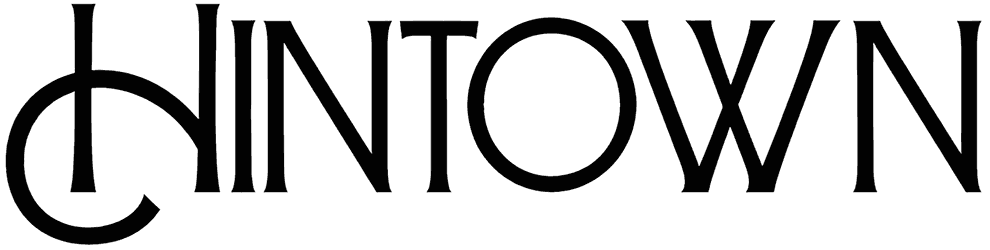
Hintown Font
Whether you’re making a poster, a card, or a t-shirt, you’re sure to be pleased with the results when you use the beautiful, retro font called Hintown.
Don’t wait another minute to get your hands on this fantastic display font, available in two sets of uppercase letters. Choose a few more fancy fonts to use as a companion to this one from our extensive collection.